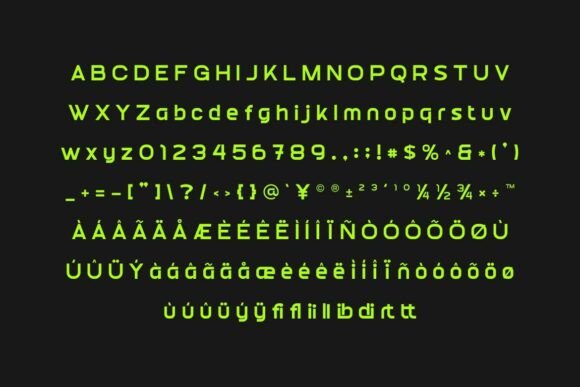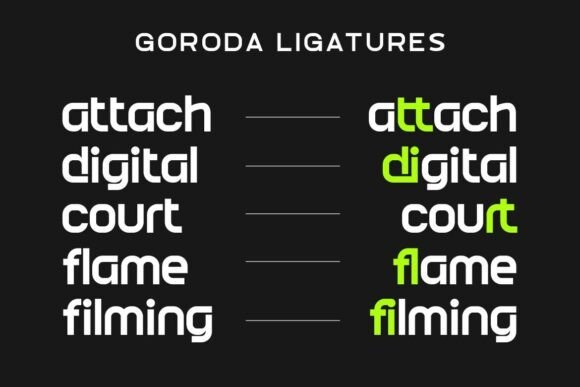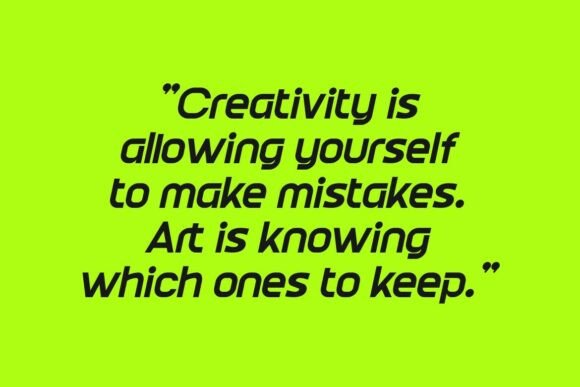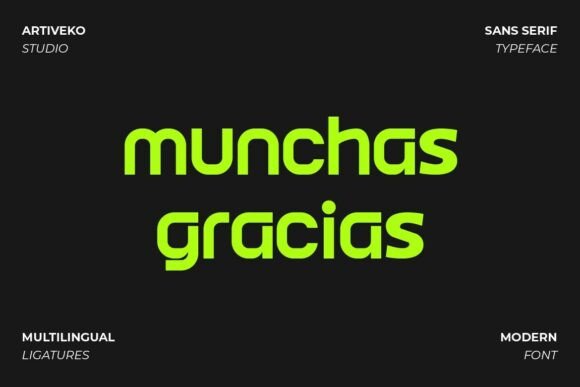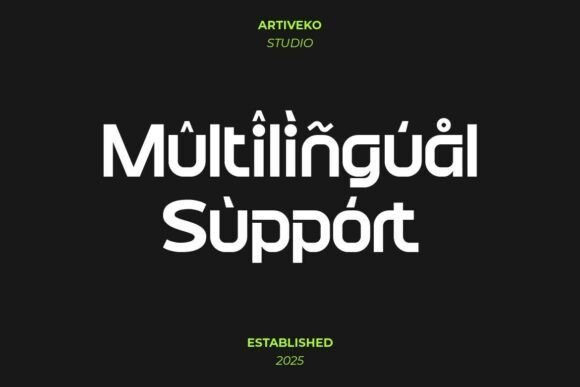
Goroda Font: Elevate Your Designs with Modern Minimalism and Timeless Elegance
In the world of typography, a well-crafted font can make all the difference in elevating your designs to new heights. Introducing Goroda, a sleek sans serif font that seamlessly blends modern minimalism with timeless elegance. With its smooth curves, geometric balance, and refined proportions, Goroda is the perfect choice for designers and crafters looking to add a touch of sophistication to their creative projects.
The Essence of Goroda Font
Goroda is more than just a font – it’s a design statement. Its sleek and modern aesthetic is characterized by clean lines, subtle curves, and a balanced geometric structure. This thoughtful design ensures that Goroda delivers exceptional clarity and legibility, making it ideal for a wide range of applications, from luxury branding and professional logos to editorial layouts, website headers, and packaging.
Key Features of Goroda Font
- Smooth Curves: Goroda’s smooth curves add a touch of elegance and sophistication to your designs, setting it apart from other sans serif fonts.
- Geometric Balance: The font’s geometric balance ensures a sense of harmony and stability, making it perfect for logos, branding, and editorial designs.
- Refined Proportions: Goroda’s refined proportions guarantee optimal legibility and readability, even at smaller font sizes.
Applications of Goroda Font
Goroda’s versatility makes it an excellent choice for various creative projects, including:
- Luxury Branding: Goroda’s sleek and sophisticated aesthetic makes it perfect for high-end branding and logo design.
- Professional Logos: The font’s geometric balance and refined proportions ensure a professional and polished look for logos and wordmarks.
- Editorial Layouts: Goroda’s exceptional legibility and clarity make it ideal for editorial designs, such as magazines, newspapers, and books.
- Website Headers: The font’s modern and elegant aesthetic adds a touch of sophistication to website headers and navigation menus.
- Packaging: Goroda’s clean and minimalist design makes it perfect for product packaging, labels, and packaging materials.
Why Choose Goroda Font?
With so many fonts available, why choose Goroda? Here are just a few reasons:
- Unique Aesthetic: Goroda’s blend of modern minimalism and timeless elegance sets it apart from other fonts.
- Versatility: The font’s versatility makes it suitable for a wide range of creative projects and applications.
- Exceptional Legibility: Goroda’s refined proportions and geometric balance ensure exceptional legibility and readability.
In conclusion, Goroda font is an exceptional choice for designers and crafters looking to elevate their designs with a touch of modern minimalism and timeless elegance. With its smooth curves, geometric balance, and refined proportions, Goroda delivers clarity, sophistication, and polish across a wide range of creative projects. Whether you’re working on luxury branding, professional logos, editorial layouts, website headers, or packaging, Goroda is the perfect font to help you achieve your design goals.